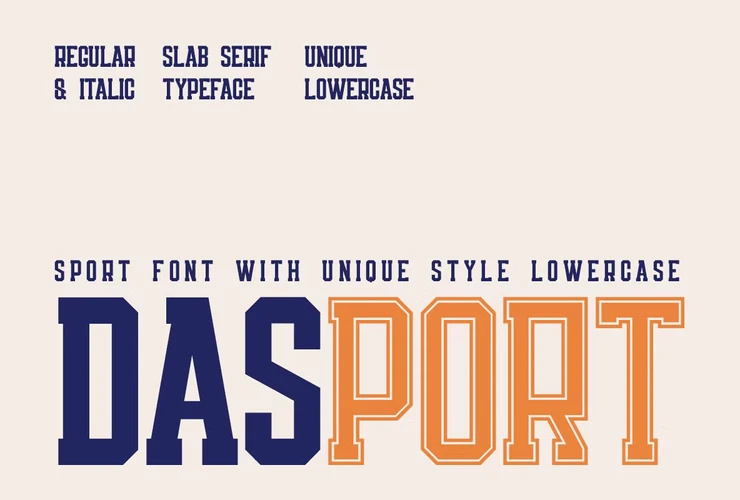
Boost Your Branding with Dasport – A Modern Baseball Sport Font
Dasport – Baseball Sport Font is a dynamic and bold display font designed to elevate your branding projects to new heights. With its unique style and versatility, Dasport is perfect for creating eye-catching logos, product packaging, and much more. Whether you’re working on an esport brand or designing for the fashion industry, Dasport brings an authentic, sporty feel to your projects.
Why Choose Dasport for Your Design Projects?
Dasport stands out with its modern and bold letterforms, making it an excellent choice for designers looking to create striking visual identities. Its versatility ensures that it performs well in various contexts, from logos and templates to packaging and promotional materials. The inclusion of both regular and italic options, along with special ligatures, adds flexibility to your design toolkit, allowing you to craft unique and engaging visuals.
Key Features of Dasport – Baseball Sport Font:
Modern & Bold Design: The font’s strong, sporty aesthetic is perfect for creating impactful designs in various industries.
Versatile Applications: Ideal for logos, templates, product packaging, and more, ensuring that your designs stand out.
Complete Character Set: Includes both uppercase and lowercase letters, numerals, punctuation, and special ligatures.
Multilingual Support: Supports multiple languages, making it accessible for global branding projects.
Perfect for Various Industries:
Dasport’s bold and unique style makes it a great fit for a wide range of industries, including:
Esports: Create dynamic and competitive logos that capture the energy of the gaming world.
Fashion: Design bold, stylish branding that stands out in the fashion industry.
Sports: Ideal for team logos, sports event branding, and merchandise.
Product Packaging: Add a modern and professional touch to packaging designs.
Conclusion:
Dasport – Baseball Sport Font is more than just a font; it’s a powerful tool for creating strong, impactful branding across various industries. With its bold design and versatile application, Dasport ensures that your creative projects are both modern and memorable.